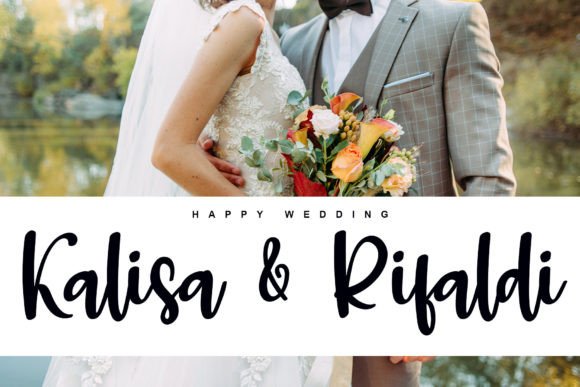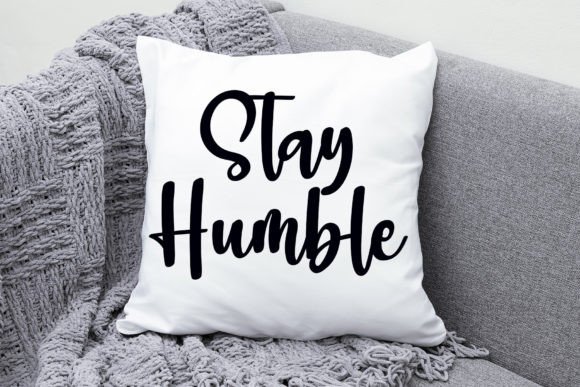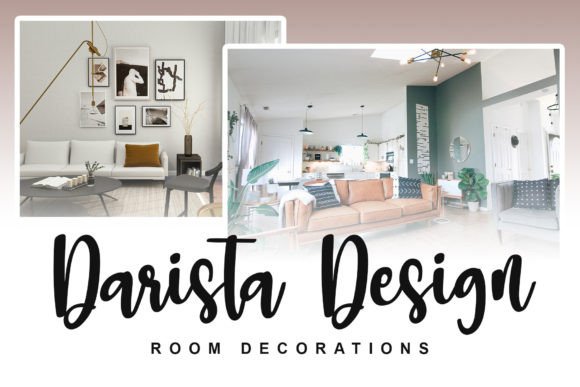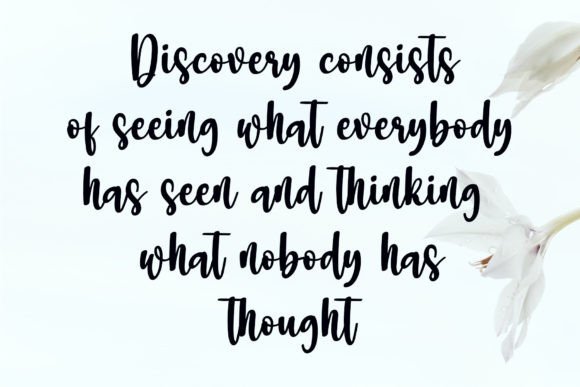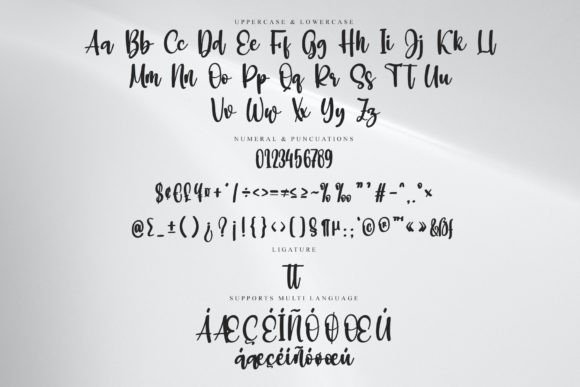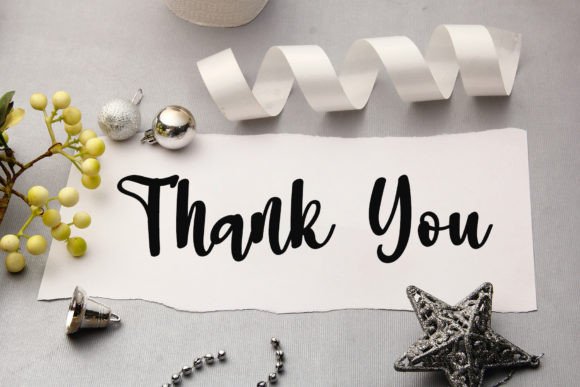
Introducing Calender Font: Elevate Your Designs with Elegance
Are you a designer, crafter, or DIY enthusiast looking for a font that can add a touch of sophistication to your creative projects? Look no further than Calender Font, a magical handwritten font designed to bring elegance and refinement to your designs. In this article, we’ll explore the features and benefits of Calender Font, and how it can help you turn your creative ideas into stunning works of art.
What is Calender Font?
Calender Font is a carefully crafted handwritten font that exudes elegance and poise. Its unique, flowing script is perfect for adding a personal touch to your designs, whether you’re creating social media graphics, invitations, or DIY projects. With Calender Font, you can add a level of sophistication and refinement to your work that will set it apart from the rest.
Features of Calender Font
- Magical Handwritten Script: Calender Font features a beautiful, flowing script that is reminiscent of traditional calligraphy.
- Elegant and Refined: The font’s elegant and refined design makes it perfect for adding a touch of sophistication to your designs.
- Versatile: Calender Font is versatile and can be used for a wide range of creative projects, from social media graphics to DIY projects.
- Adds Elegance to Your Designs: Calender Font adds a level of elegance and sophistication to your designs that will set them apart from the rest.
- Perfect for Social Media: The font is perfect for creating social media graphics that will grab attention and leave a lasting impression.
- Ideal for DIY Projects: Calender Font is also ideal for DIY projects, such as crafting, scrapbooking, and card making.
In conclusion, Calender Font is a magical handwritten font that can add a touch of elegance and sophistication to your designs. Whether you’re a designer, crafter, or DIY enthusiast, this font is perfect for creating stunning works of art. With its unique features, benefits, and ease of use, Calender Font is a must-have for anyone looking to elevate their creative projects.